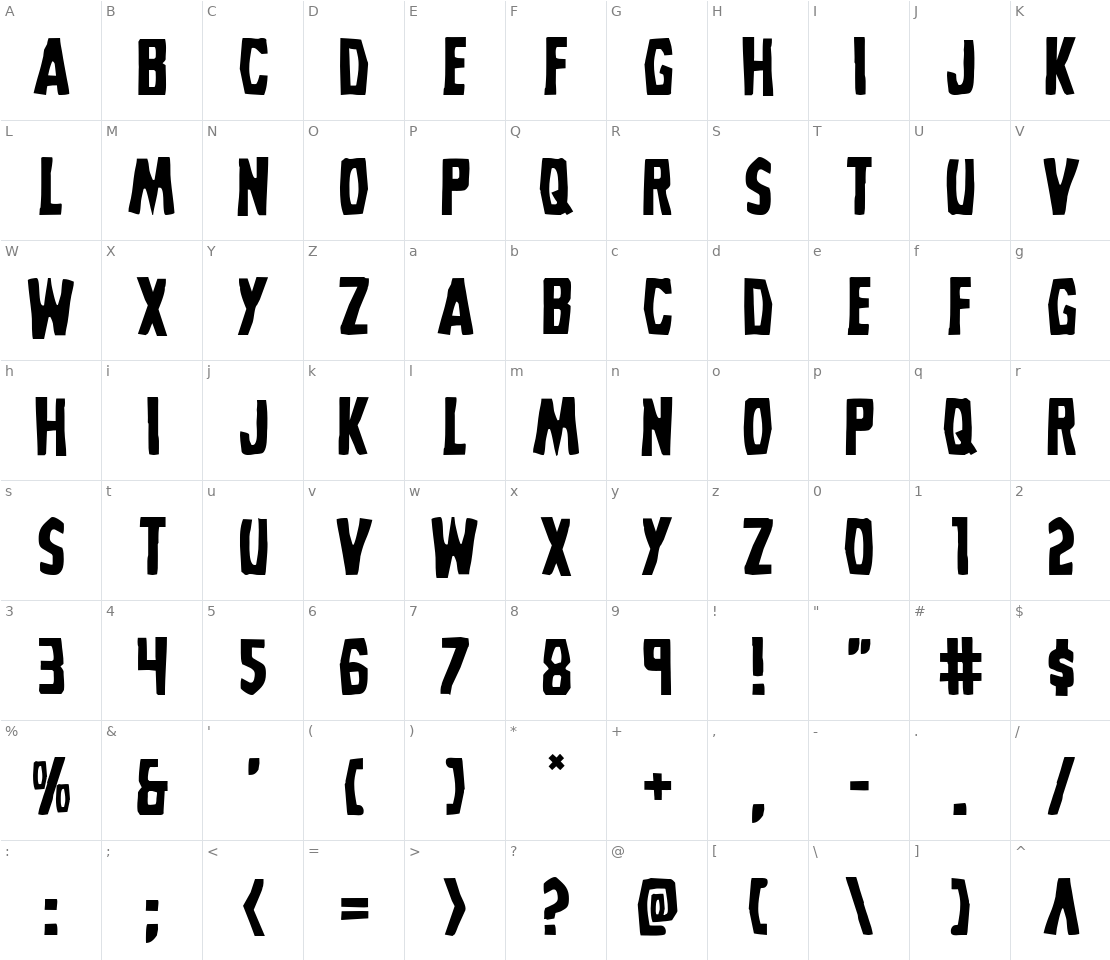
Grim Ghost
Grim Ghost is a heavy, condensed display face from Iconian Fonts with warped, irregular letterforms that feel like they're melting off a haunted house sign. The bold strokes and distorted shapes lean fully into Halloween and horror territory, built for posters, event flyers, and anything that needs to look genuinely unsettling at large sizes.